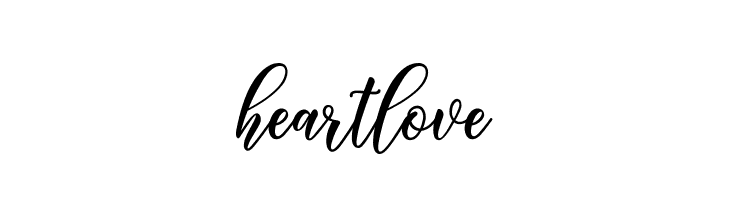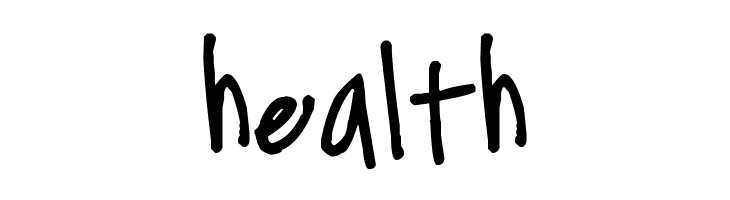
An elegant, flowing script font with a romantic and sophisticated style.
A futuristic, geometric font with bold, angular letterforms.
A modern, geometric sans-serif font with a clean and professional look.
A decorative font with letters inside turkey silhouettes, ideal for festive themes.
A clean, modern sans-serif typeface with balanced proportions.
A bold, expressive handwritten script with dynamic strokes and a brush-like texture.